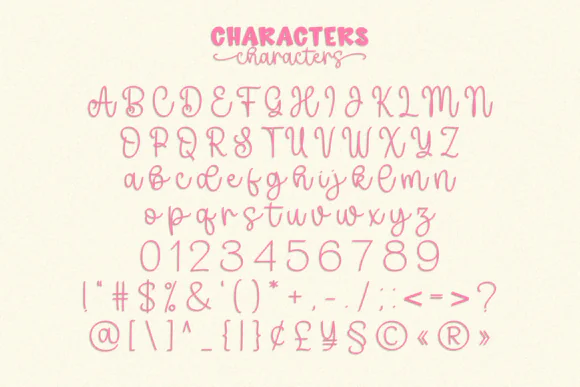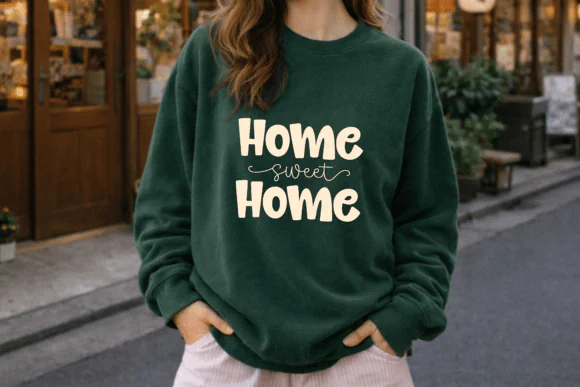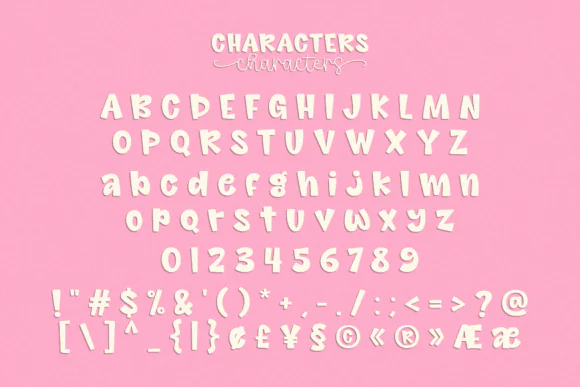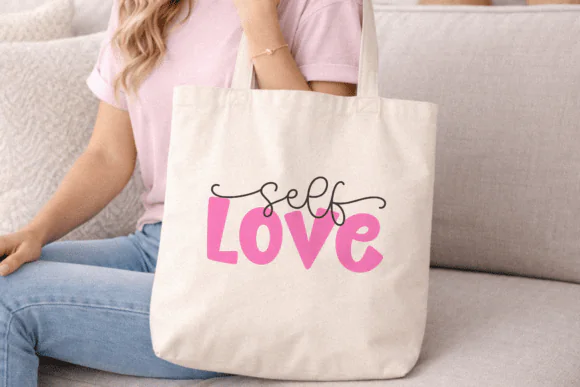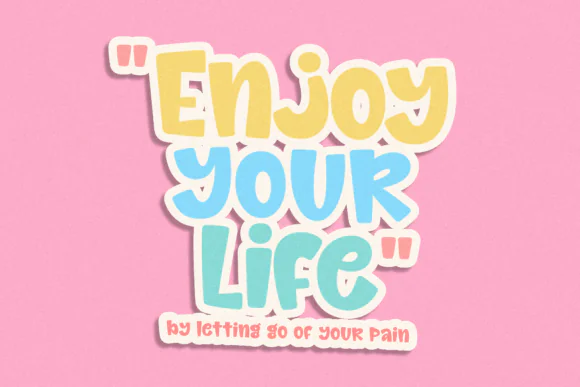
Beautiful Smile Handwritten Font Duo – Playful Rounded Display & Flowing Script Typeface for Branding, Packaging, Invitations, Quotes, Stickers, Social Media & Joyful Creative Designs
Create cheerful, warm, and personality-filled designs with Beautiful Smile Font, a playful handwritten font duo that combines bold rounded display lettering with a smooth flowing script companion. This pairing gives your projects the perfect mix of fun, friendliness, elegance, and handwritten charm.
The main display typeface features chunky, soft-edged letterforms with gentle curves, subtle stroke variation, open counters, and balanced proportions. This makes it highly readable while still feeling playful, bubbly, and full of character. The companion script adds graceful monoline strokes, natural rhythm, seamless connections, and expressive swashes, giving your designs extra movement, warmth, and handmade beauty.
Beautiful Smile Font is perfect for branding, packaging, invitations, greeting cards, stickers, quote graphics, social media posts, product labels, birthday designs, kids projects, boutique branding, printable wall art, DIY crafts, Cricut projects, and joyful merchandise designs. The contrast between the puffy display font and elegant script makes it versatile for both fun and polished creative layouts.
Whether you are designing a cute logo, cheerful product packaging, happy invitation, playful sticker set, or warm social media graphic, Beautiful Smile Font helps your words feel inviting, memorable, and full of positive energy.
Branding, logos, packaging, invitations, greeting cards, stickers, quote designs, social media graphics, product labels, birthday party designs, kids projects, printable wall art, DIY crafts, Cricut projects, boutique designs, cheerful merchandise, and joyful digital products.
Key Features
• Playful handwritten font duo
• Bold rounded display font with soft edges
• Smooth flowing script companion
• Chunky, cheerful, friendly, and highly readable style
• Elegant monoline script with expressive swashes
• Great contrast between display and script lettering
• Perfect for fun, warm, joyful, and handmade designs